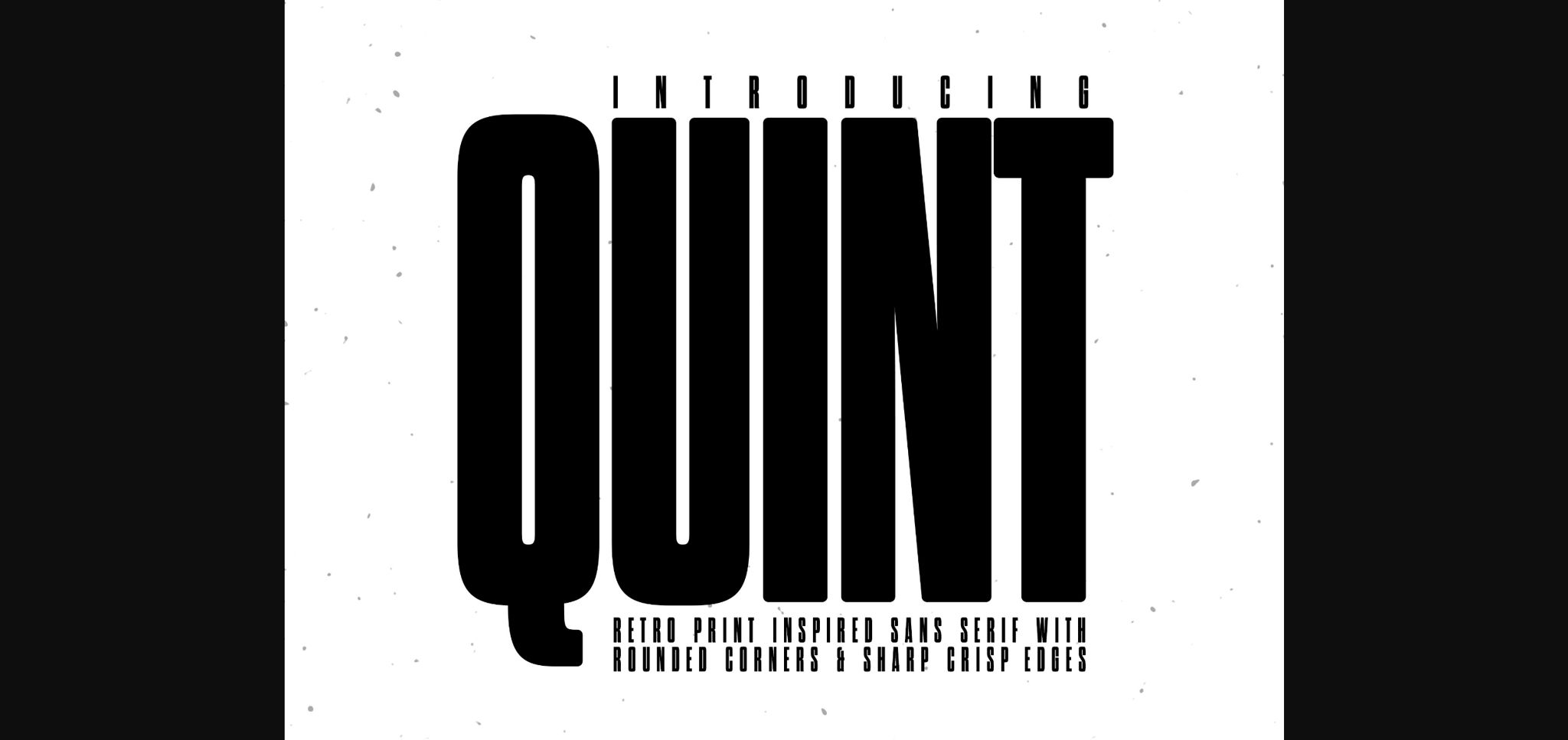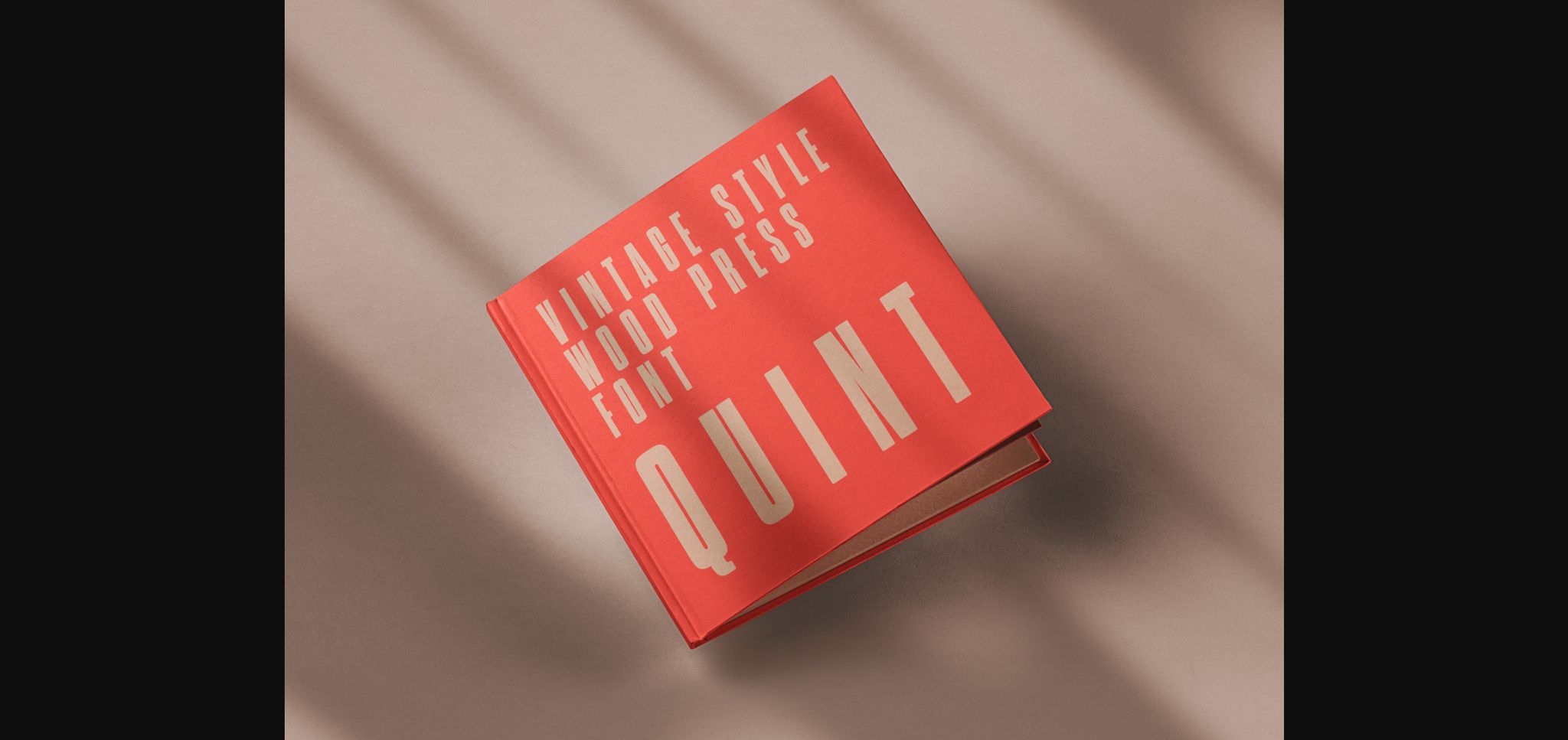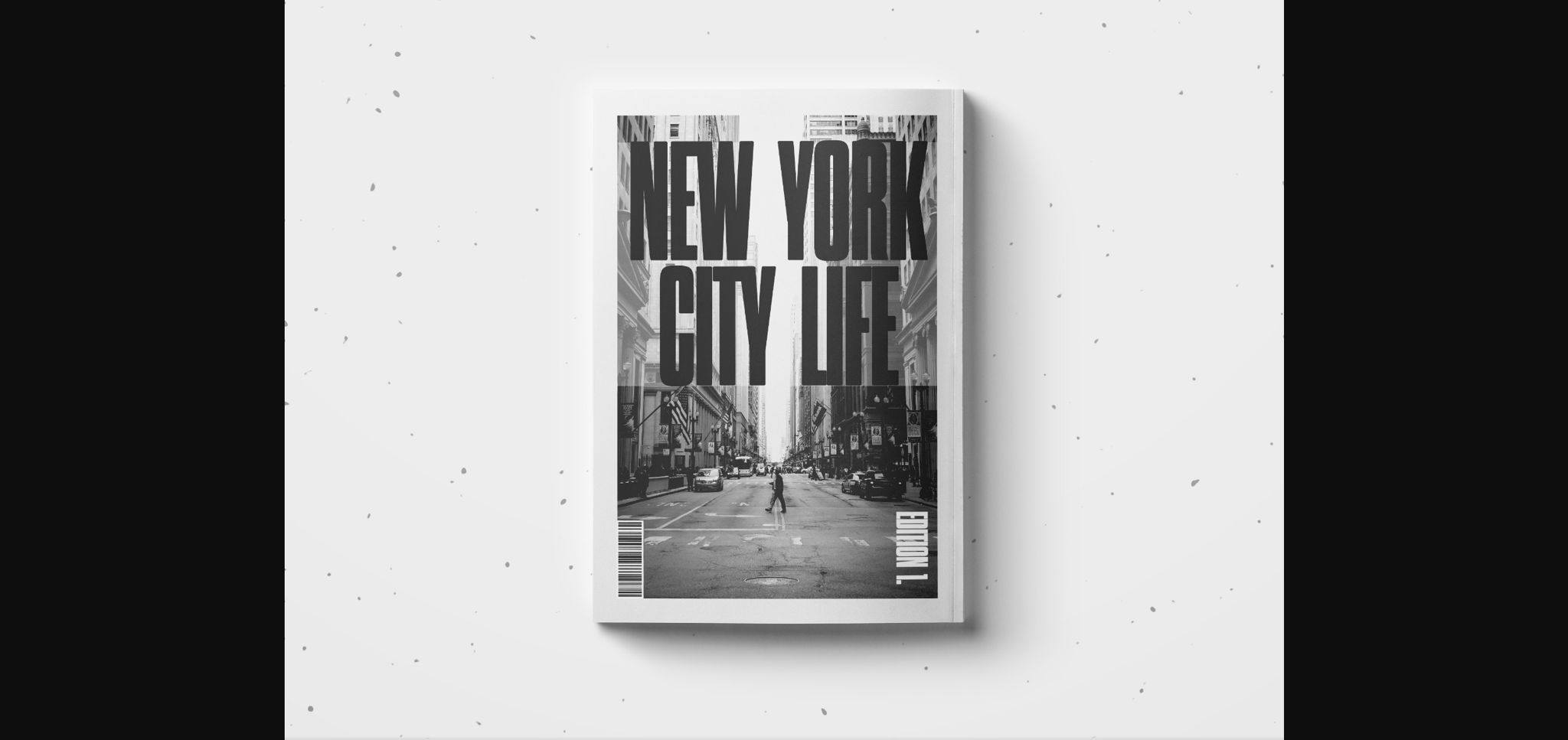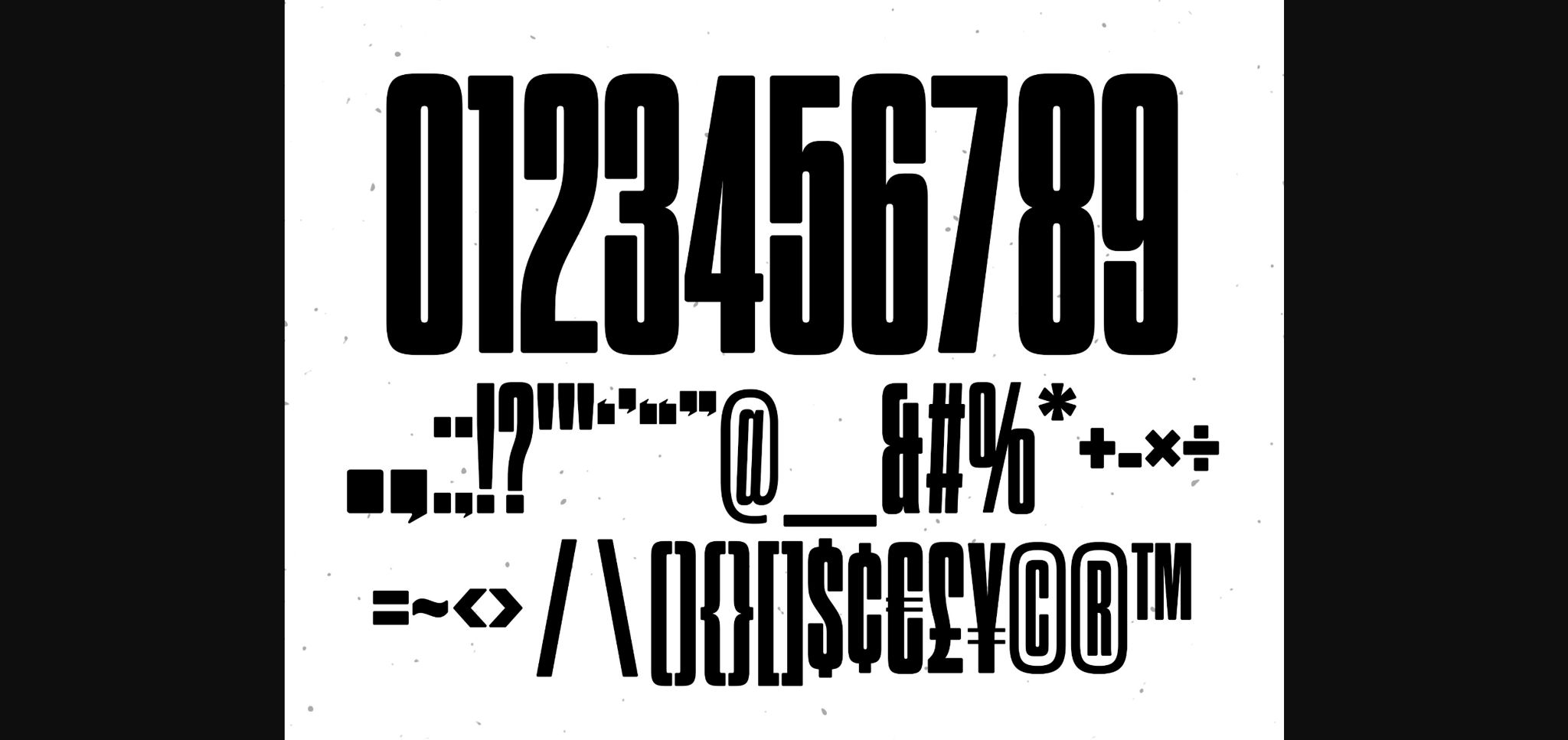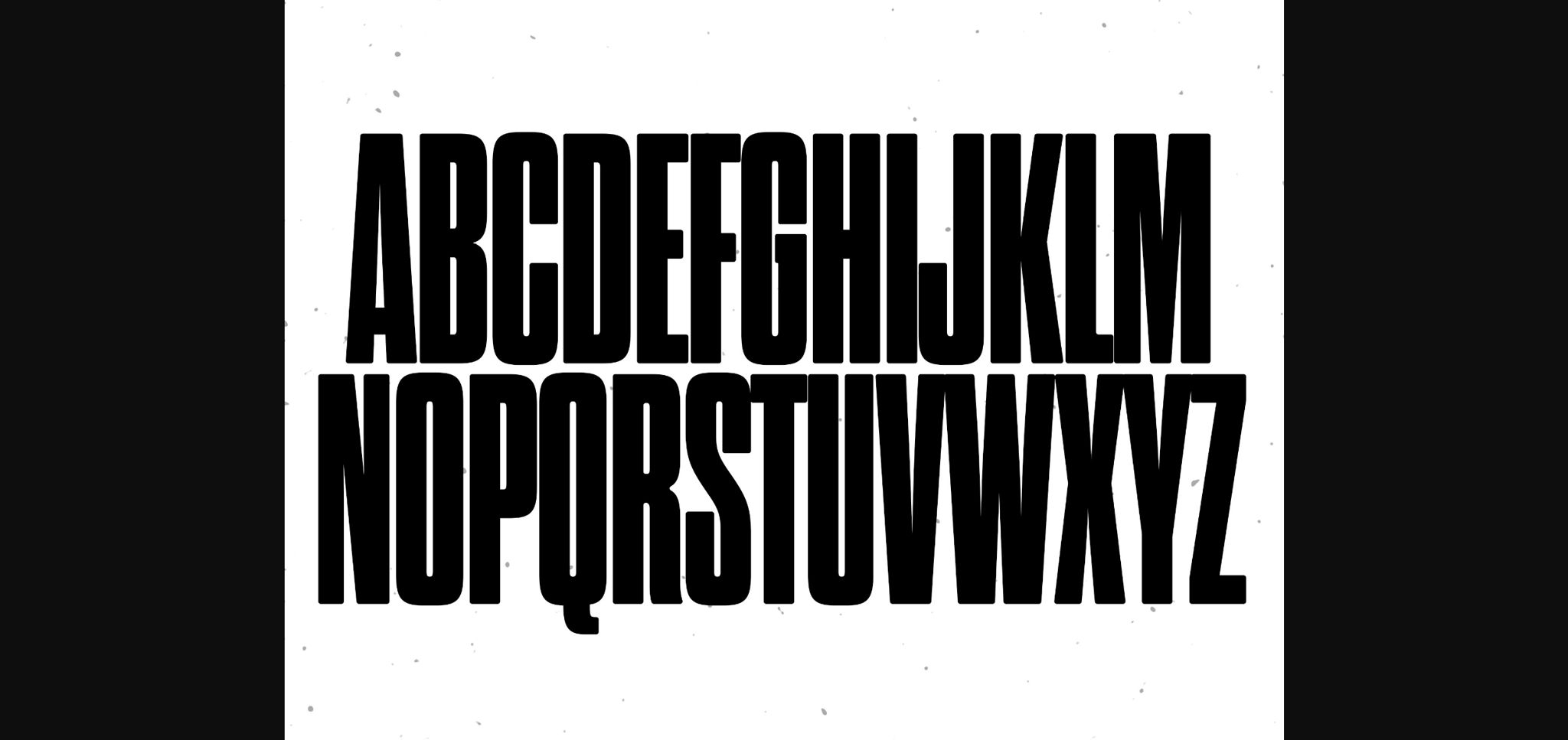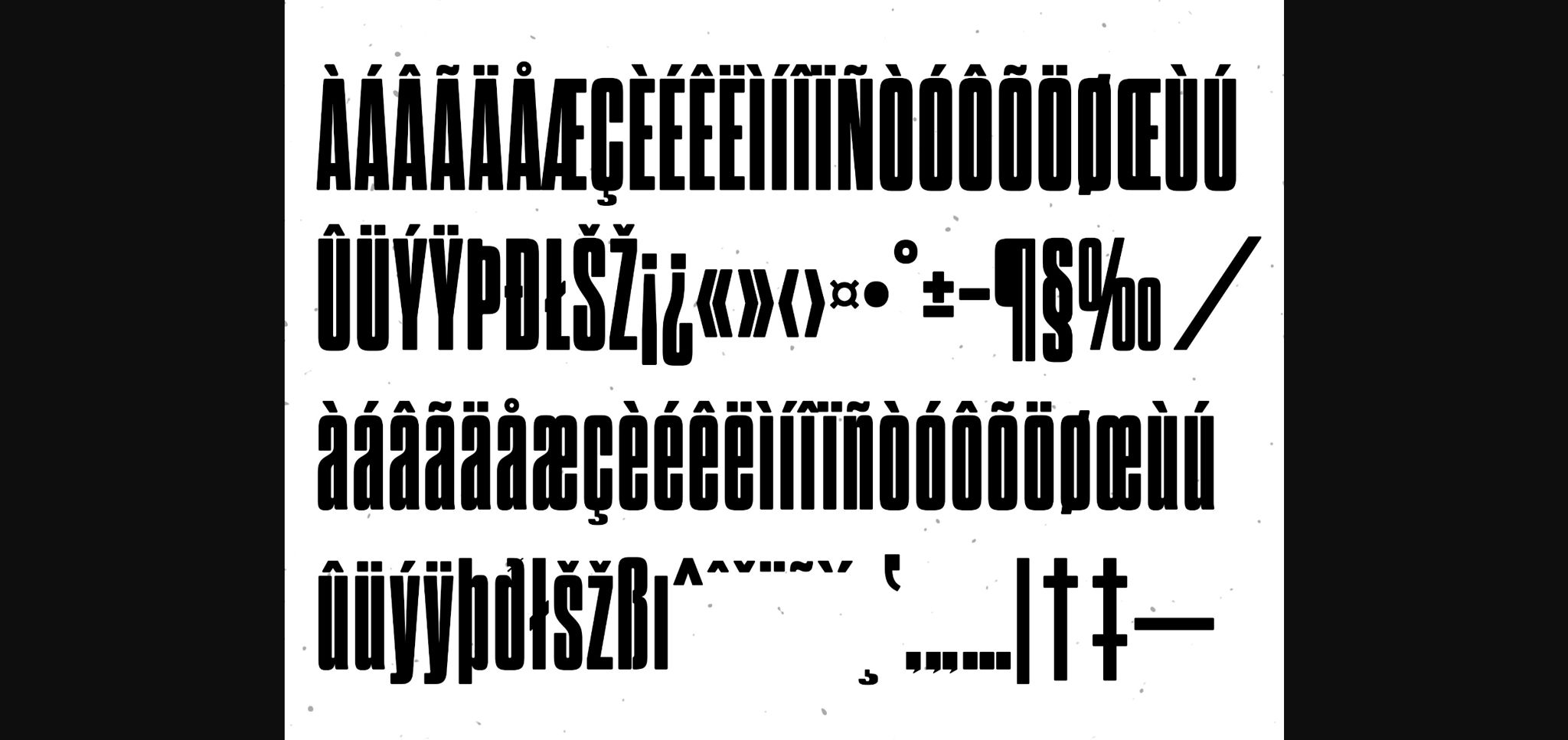
Quint Font
Quint – Retro Print inspired Sans Serif Font
This vintage sans serif will give your artwork a nostalgic yet modern look.
With its rounded corners and sharp crisp edges ‘Quint’ will give your artwork a bold and dramatic statement with its super easy legible typestyle.
Quint is hand drawn using Illustrator to create this unique and iconic font.